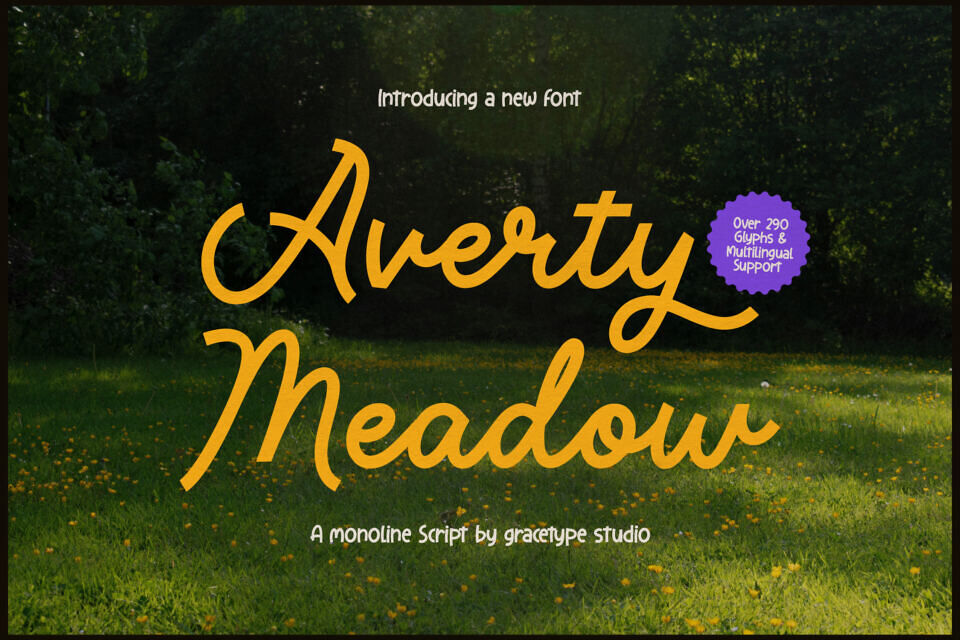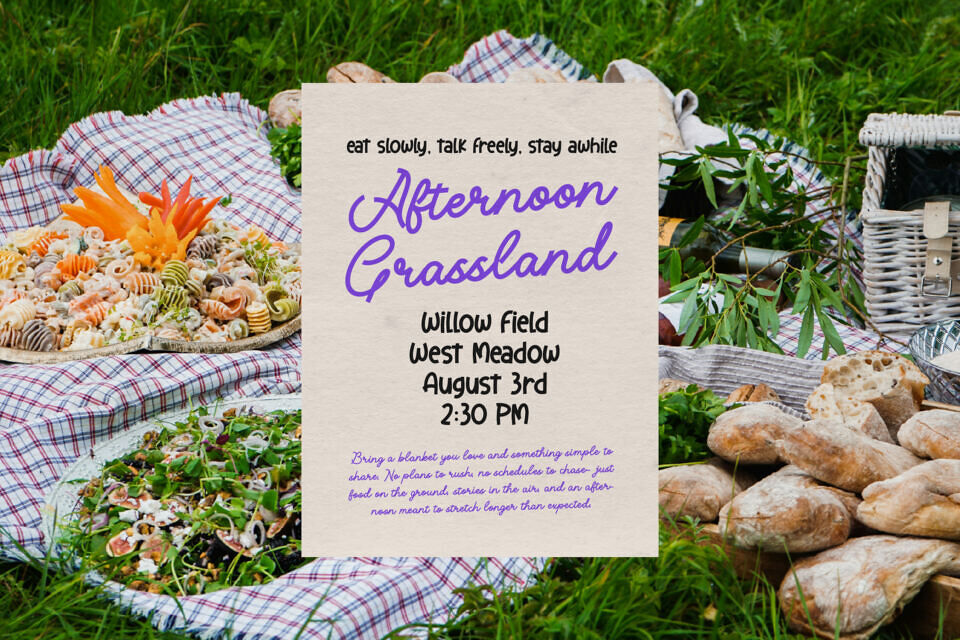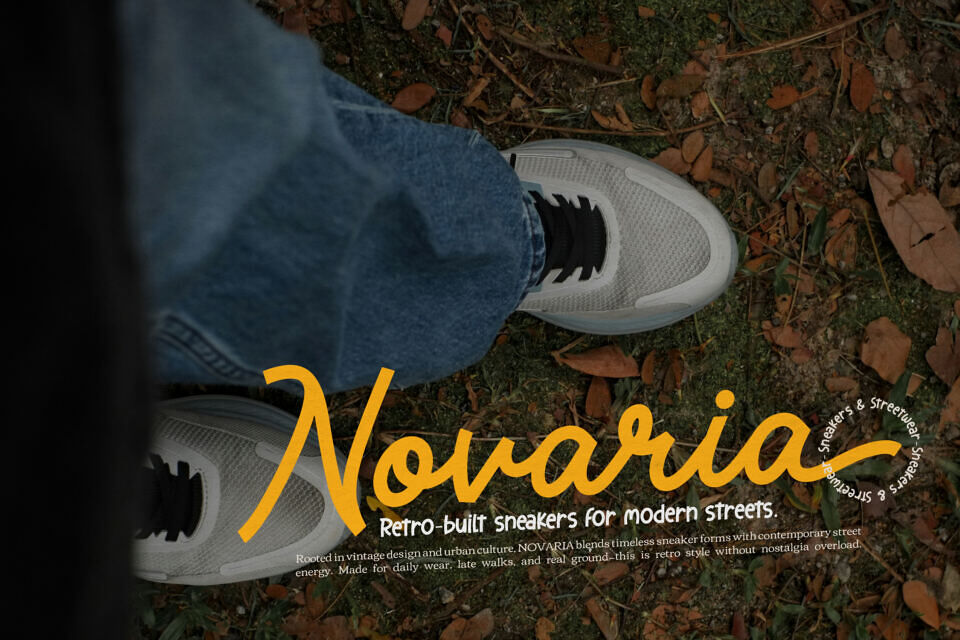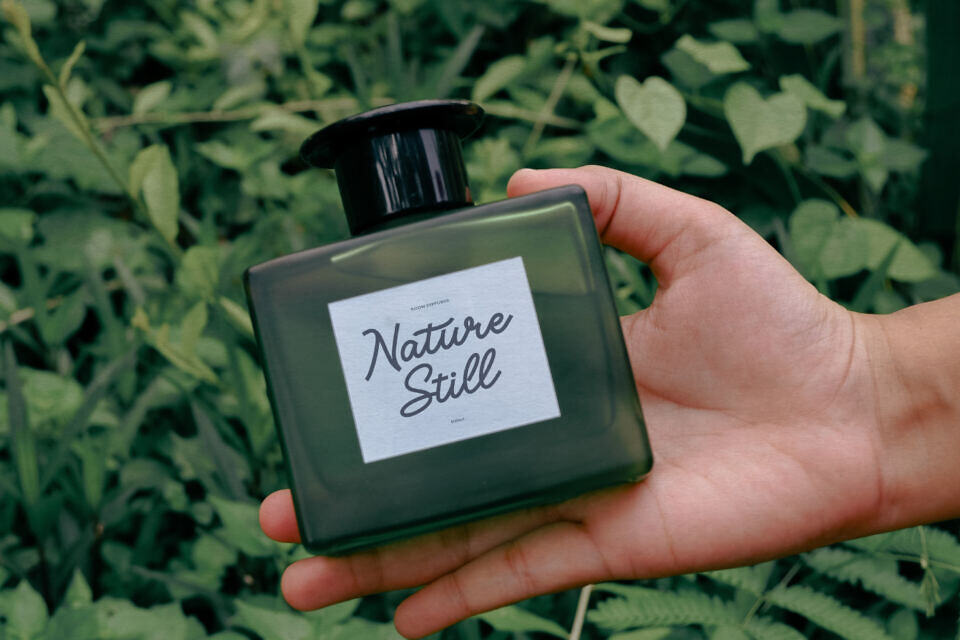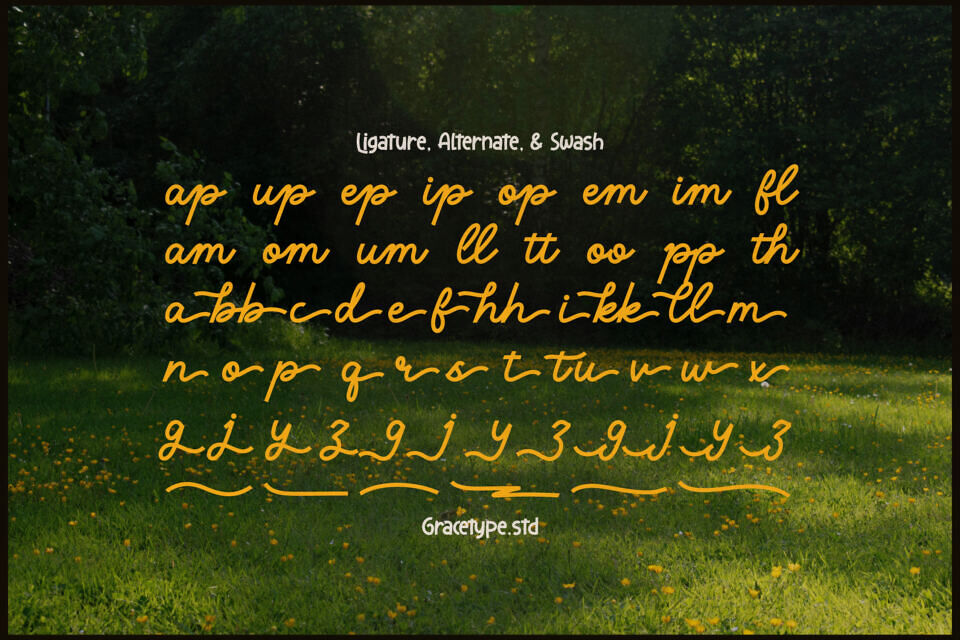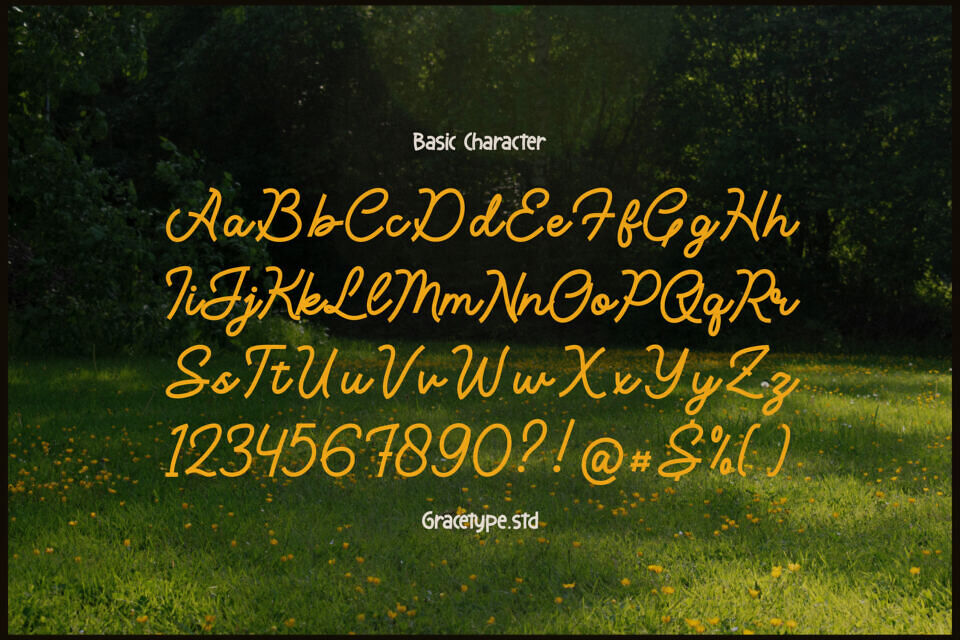
Averty Meadow Font
Averty Meadow is a monoline script font evoking a blooming field’s natural beauty. With 290+ glyphs and multilingual support, it’s ideal for global branding, wedding invitations, and product labels.
Its consistent line weight and elegant loops maintain legibility at small sizes. Pair it with nature photography or earthy tones to showcase its fluid, organic lines.